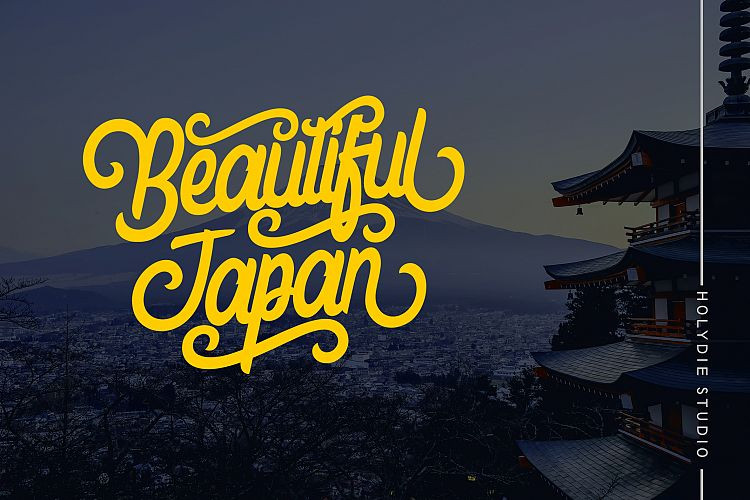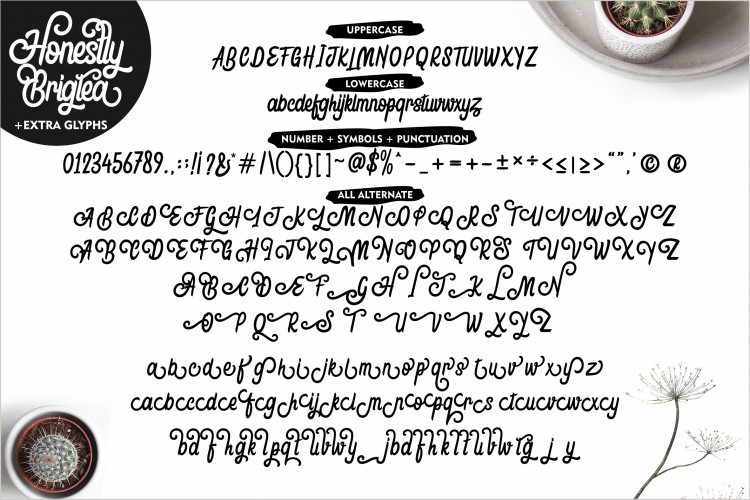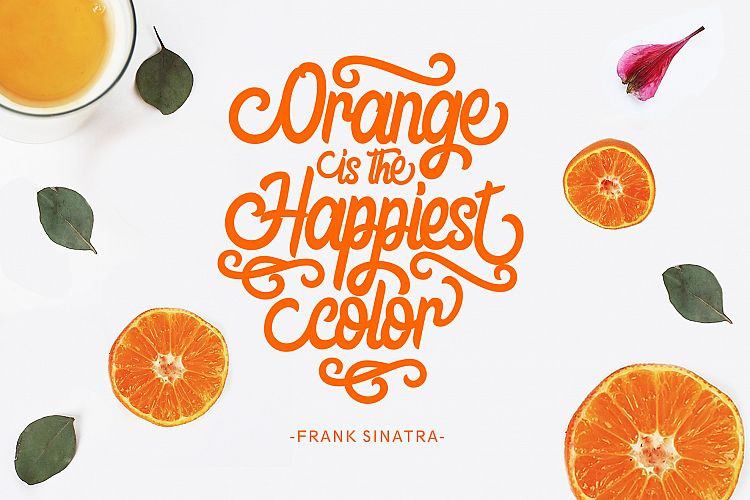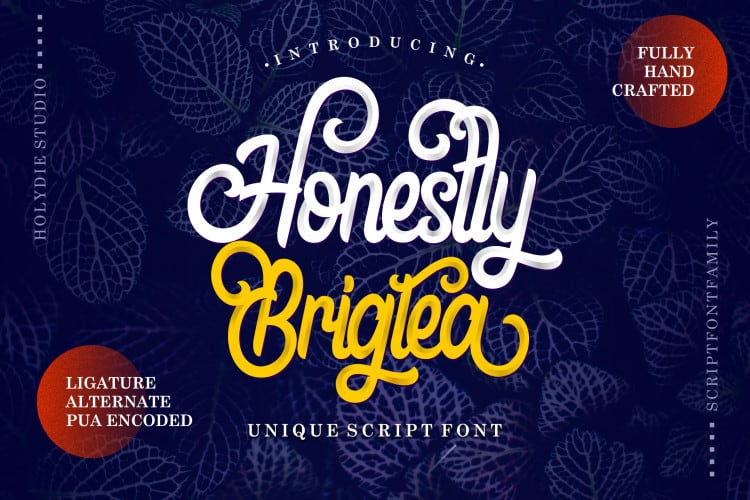
Honestly Brigtea Script Font
Honestly Brigtea Script – Demo Font
Introducing an elegant monoline font. This collection of scripts is perfect for personal branding. It was made with the intention to be used for your personal branding. It is called Honestly Brigtea Font. It’s a fun and playful handwritten font with a unique twist. Get inspired by its dynamic feel, and turn any design idea into a true stand out! This works well for many applications. Everything from personal branding, photography signature, advertising could benefit from this collection of this bold signature fonts.